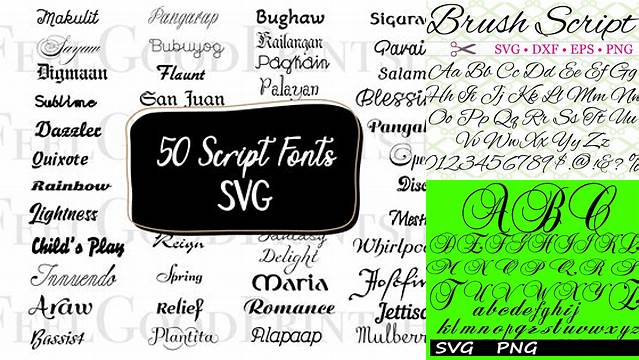
Cursive Font SVG Generator: Your Ultimate Guide
Hey guys! Are you looking to add a touch of elegance and personalization to your projects? Cursive fonts are the way to go! They bring a unique flair and charm that can elevate anything from logos and invitations to websites and social media graphics. In this comprehensive guide, we'll dive deep into the world of cursive fonts and how you can generate them in SVG format. We'll explore the benefits of using SVG, different methods for generating cursive fonts, and even provide some tips and tricks to make your designs stand out. So, grab your favorite beverage, settle in, and let's get started!
What are Cursive Fonts?
First, let's break down what we mean by cursive fonts. Cursive fonts, also known as script fonts, are designed to mimic the flowing strokes of handwriting. They often feature connected letters and elegant flourishes, giving them a distinct and sophisticated look. Think about the beautiful calligraphy you see on wedding invitations or the stylish logos of high-end brands – that's the magic of cursive fonts at work! The beauty of cursive fonts lies in their versatility. They can be delicate and graceful, bold and dramatic, or playful and whimsical, depending on the specific style. This makes them suitable for a wide range of applications, from formal documents to casual designs.
Benefits of Using Cursive Fonts
Using cursive fonts in your designs can bring a host of benefits. They add a personal touch, making your work feel more handcrafted and unique. This is especially valuable in a digital world where so much feels generic and mass-produced. A well-chosen cursive font can instantly elevate the perceived quality and sophistication of your project. Moreover, cursive fonts can enhance readability when used correctly. While they might not be ideal for large blocks of text, they excel at headings, logos, and short phrases. The flowing lines draw the eye and create visual interest, making your message more memorable. But remember, the key is to use them judiciously and ensure they complement the overall design.
Understanding SVG (Scalable Vector Graphics)
Now, let's talk about SVG, which stands for Scalable Vector Graphics. SVG is an XML-based vector image format that's perfect for displaying graphics on the web. Unlike raster images (like JPEGs and PNGs), which are made up of pixels, SVGs are made up of mathematical equations. This means they can be scaled up or down without losing quality, making them ideal for responsive designs that need to look sharp on any screen size. One of the biggest advantages of using SVG for cursive fonts is their scalability. Whether you need a tiny logo or a giant banner, your font will look crisp and clear. SVGs also have smaller file sizes compared to raster images, which can improve your website's loading speed and overall performance. Another perk is that SVGs can be animated and interacted with using CSS and JavaScript, opening up a world of creative possibilities. You can create dynamic text effects, hover animations, and more, adding an extra layer of polish to your designs.
Why Use SVG for Cursive Fonts?
Why should you choose SVG for your cursive fonts specifically? Well, there are several compelling reasons. The scalability we mentioned earlier is a major one. No matter how large or small you need your font to be, it will always look smooth and defined. This is crucial for projects that will be viewed on different devices and screen resolutions. Another key advantage is the ability to style SVG fonts using CSS. You can change the color, stroke, fill, and other properties of your font directly in your stylesheet, giving you incredible flexibility and control over the appearance. This means you can easily adapt your font to fit different design contexts without having to recreate the image each time. Furthermore, SVG fonts are searchable and selectable, which is great for SEO and user accessibility. Search engines can read the text within an SVG, helping your website rank higher in search results. And users can copy and paste the text, making it easier to interact with your content. This is a significant improvement over raster images, where the text is essentially just a visual element.
Methods for Generating Cursive Font SVGs
Alright, let's get to the juicy part – how to actually generate cursive font SVGs! There are several methods you can use, each with its own pros and cons. We'll cover a few popular options, from online generators to design software and even coding your own. This way, you can choose the approach that best suits your skills and needs.
Online Cursive Font Generators
Online cursive font generators are a fantastic option for those who want a quick and easy solution. There are many websites that offer this service for free, allowing you to type in your text and download the SVG file instantly. These generators often provide a range of font styles to choose from, so you can experiment and find the perfect look for your project. The main advantage of using an online generator is its simplicity. You don't need to install any software or have advanced design skills. Just type, select, and download – it's that easy! However, the downside is that you might have limited customization options. You're usually stuck with the font styles and settings provided by the generator. If you need more control over the design, you might want to explore other methods.
Examples of Online Generators
Some popular online cursive font generators include FontStruct, Calligraphr, and MyScriptFont. FontStruct is a web-based font editor that lets you build your own fonts from geometric shapes. It's a bit more advanced than a simple generator, but it gives you a lot of creative freedom. Calligraphr allows you to turn your own handwriting into a font. You can print out a template, write the letters, scan it, and upload it to the website. Calligraphr will then generate a font file that you can use in your designs. MyScriptFont is another handwriting-to-font converter. It's similar to Calligraphr but offers a slightly different workflow and features. These tools are great for creating personalized fonts that truly reflect your style.
Using Design Software (Adobe Illustrator, Inkscape)
If you're looking for more control and flexibility, using design software like Adobe Illustrator or Inkscape is the way to go. These programs offer a wide range of tools and features for creating and editing vector graphics, including fonts. With design software, you can choose from a vast library of cursive fonts, customize the letterforms, and add your own unique touches. Adobe Illustrator is the industry-standard vector graphics editor. It's a powerful program with a steep learning curve, but it offers unparalleled control over your designs. Inkscape is a free and open-source alternative to Illustrator. It's not as feature-rich, but it's still a very capable tool for creating SVG fonts. Both programs allow you to manipulate the paths and curves of the letters, adjust the spacing and kerning, and add effects like shadows and gradients. This level of customization is simply not possible with online generators.
Steps to Generate Cursive Font SVG in Illustrator:
- Open Adobe Illustrator and create a new document.
- Select the Type Tool and type your text.
- Choose a cursive font from the Character panel.
- Right-click on the text and select "Create Outlines". This converts the text into vector paths.
- Adjust the letterforms as needed using the Direct Selection Tool.
- Go to File > Export > Export As and choose SVG as the file format.
- Adjust the SVG export settings and click Export.
Steps to Generate Cursive Font SVG in Inkscape:
- Open Inkscape and create a new document.
- Select the Text Tool and type your text.
- Choose a cursive font from the Text and Font panel.
- Go to Path > Object to Path. This converts the text into vector paths.
- Adjust the letterforms as needed using the Node Tool.
- Go to File > Save As and choose SVG as the file format.
- Adjust the SVG save settings and click Save.
Coding Your Own SVG Font
For the tech-savvy folks out there, coding your own SVG font is another exciting option. This gives you the ultimate control over every aspect of the font, from the letterforms to the kerning. It's a more challenging approach, but it can be incredibly rewarding. SVG fonts are essentially XML files that define the shapes of the letters using path data. You can create these paths manually using a text editor or a programming language. This method requires a solid understanding of SVG syntax and font design principles. However, the result can be a truly unique and custom font that perfectly matches your vision. Coding your own SVG font also allows you to add advanced features like ligatures and contextual alternates, which can enhance the readability and aesthetics of your text. These features are difficult or impossible to achieve with online generators or design software.
Basic Structure of an SVG Font File
An SVG font file consists of several key elements, including the <font>
element, the <font-face>
element, and the <glyph>
elements. The <font>
element is the root element that contains all the font definitions. The <font-face>
element describes the font's characteristics, such as the font family, font weight, and font style. The <glyph>
elements define the shapes of the individual characters using path data. Each <glyph>
element represents a letter, number, or symbol. The path data is a series of commands that specify how to draw the shape. These commands include moving the pen, drawing lines, and drawing curves. Understanding the structure of an SVG font file is crucial for coding your own fonts. It allows you to create complex and intricate letterforms with precision.
Tips and Tricks for Using Cursive Fonts in SVG
Okay, you've got your cursive font SVG ready to go – now what? Here are some tips and tricks to help you use them effectively in your designs. Remember, cursive fonts are powerful tools, but they need to be used wisely to achieve the desired effect.
Choosing the Right Cursive Font
Not all cursive fonts are created equal. The font you choose should match the overall style and tone of your project. A delicate, flowing script might be perfect for a wedding invitation, but it would look out of place on a tech company's website. Consider the context and audience when selecting a font. Think about the message you want to convey and the emotions you want to evoke. A formal event calls for an elegant and refined font, while a casual project might benefit from a playful and whimsical script. Don't be afraid to experiment with different fonts until you find the perfect fit.
Pairing Cursive Fonts with Other Fonts
Cursive fonts often look best when paired with a simpler, more legible font. This creates a visual contrast that's pleasing to the eye. Use the cursive font for headings or short phrases and a sans-serif or serif font for the body text. This ensures readability while still adding a touch of elegance. The key is to find a balance between the decorative and the functional. A good rule of thumb is to pair a more ornate cursive font with a clean and minimalist sans-serif font. Conversely, a more understated cursive font can be paired with a slightly more decorative serif font. Experiment with different combinations until you find a pairing that works well together.
Adjusting Letter Spacing and Kerning
Letter spacing (tracking) and kerning are crucial for the readability and aesthetics of your text. Cursive fonts, in particular, often require adjustments to these settings to look their best. Letter spacing refers to the overall space between all the letters in a word or phrase. Kerning refers to the space between specific pairs of letters. In design software like Adobe Illustrator and Inkscape, you can adjust these settings to create a more balanced and harmonious look. Pay attention to the gaps between letters and make sure they are consistent and visually appealing. Overlapping letters can be a common issue with cursive fonts, so you might need to manually adjust the kerning to prevent this. A well-kerned font will look more polished and professional.
Using Cursive Fonts Sparingly
Less is often more when it comes to cursive fonts. Using them too much can make your design look cluttered and overwhelming. Reserve cursive fonts for key elements like headings, logos, or short quotes. Avoid using them for large blocks of text, as they can be difficult to read. The goal is to add a touch of elegance and personality without sacrificing readability. Think of cursive fonts as an accent rather than the main course. A small amount can go a long way in enhancing the overall design.
So there you have it – a comprehensive guide to cursive font SVG generation! We've covered everything from the basics of cursive fonts and SVG to different methods for creating them and tips for using them effectively. Whether you're a seasoned designer or just starting out, we hope this guide has given you the knowledge and inspiration to create beautiful and unique designs with cursive fonts. Remember, the key is to experiment, have fun, and let your creativity flow! Cursive fonts can add a touch of magic to your projects, so don't be afraid to explore the possibilities. And always remember to choose the right font for the job and use it sparingly to achieve the best results. Happy designing, guys!